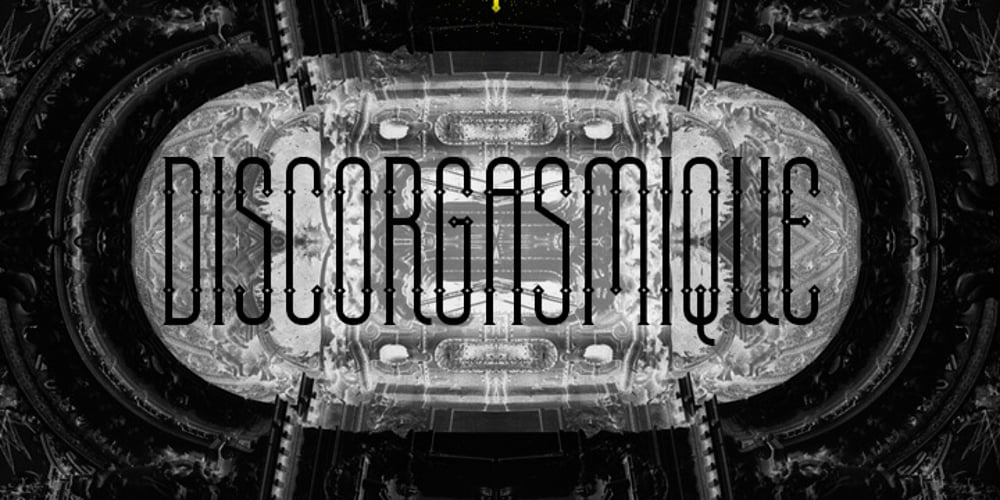
Discorgasmique
Discorgasmique font
Discorgasmique Font Family was designed by David Alexander Slaager and published by Fonts of Chaos. Discorgasmique contains 1 styles and family package options. Discorgasmique is a font take inspiration from the 1940′ years with a futuristic mood.